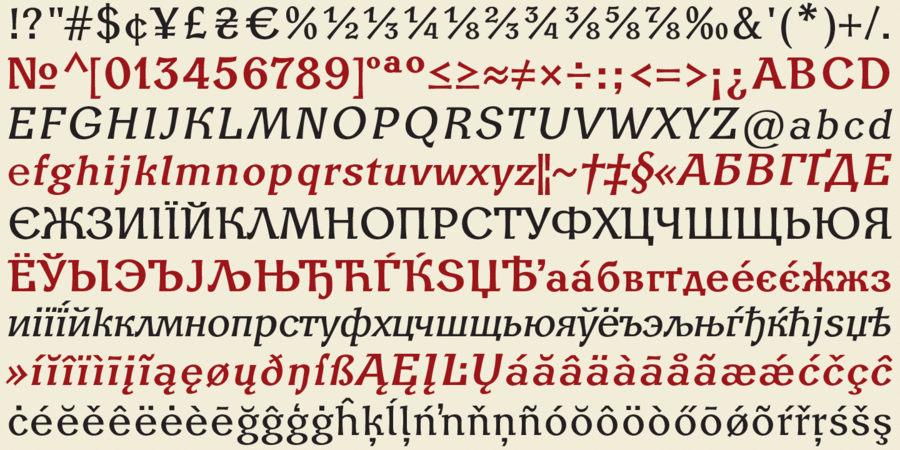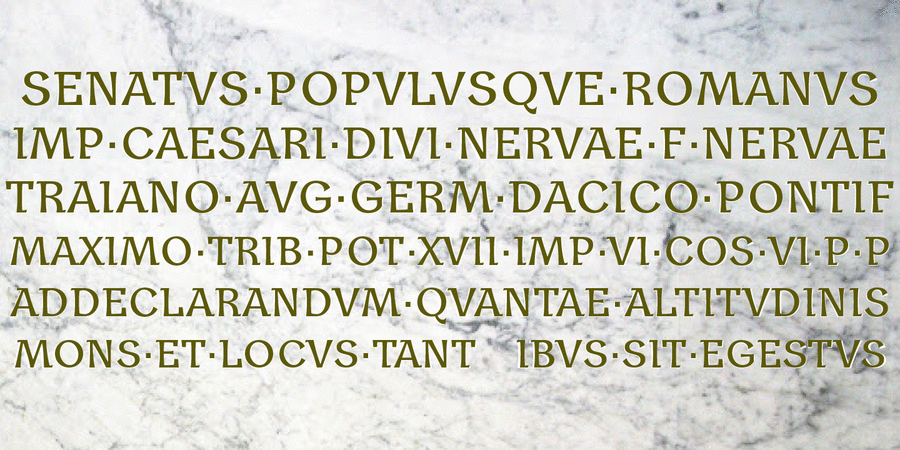
About HomenkoThe famous Khomenko font family, which in Soviet Union times introduced the Narbut tradition of fonts with asymmetrical serif, was completed in 1965 by Vasyl Khomenko (1912-1984), a famous graphic artist. For a long time, it's been the only typeface with the Ukrainian character and sometimes was also used in decals for design needs.
The modern electronic version has been processed and developed by Gennady Zarechnyuk. It has been transformed into a full quality font family that meets modern requirements.
The font perfectly suits typesetting texts, is well-read in small sizes, and due to a distinct character can be successfully applied in printing.
The typeface was designed by Gennady Zarechnyuk and Viktor Kharyk on the base of Vasyl Khomenko's typeface in 2010. Then the it was upgraded and remastered by Konstantin Golovchenko in 2020.
Features of font family HomenkoThe hit of the decade:
Hit of 1910s Hit of 1920s Close to historical original:
Associations for font family HomenkoTypeface personality and character:
noble, conservative, traditional, pretentious, artistic, sharp, masterful, aristocratic, high-quality, historical, humanitarian, dynamic, autumn, ancient, fairy, beautiful, expressive, distinctive, rhythmic, luxurious, solid, crisp, original, cutting, picturesque, nostalgic, man-made, good quality, handicraft
library, art, museum, literature, aesthetics, prose, music, heraldry, wine, silver, fall, tale, fairy tale, decoration, painting, trophy, reward, castle, bank note, Cossack, hetman, craft, tobacco, tattoo, history, theater, alcohol, reconstruction, monument, memorial, embroidered, ethnography, coin, tourism, legend, landscape, sculpture, snack, spice, beer, tavern, blacksmith, bread, fair, souvenir, meat, honey, food Typeface associated with age: